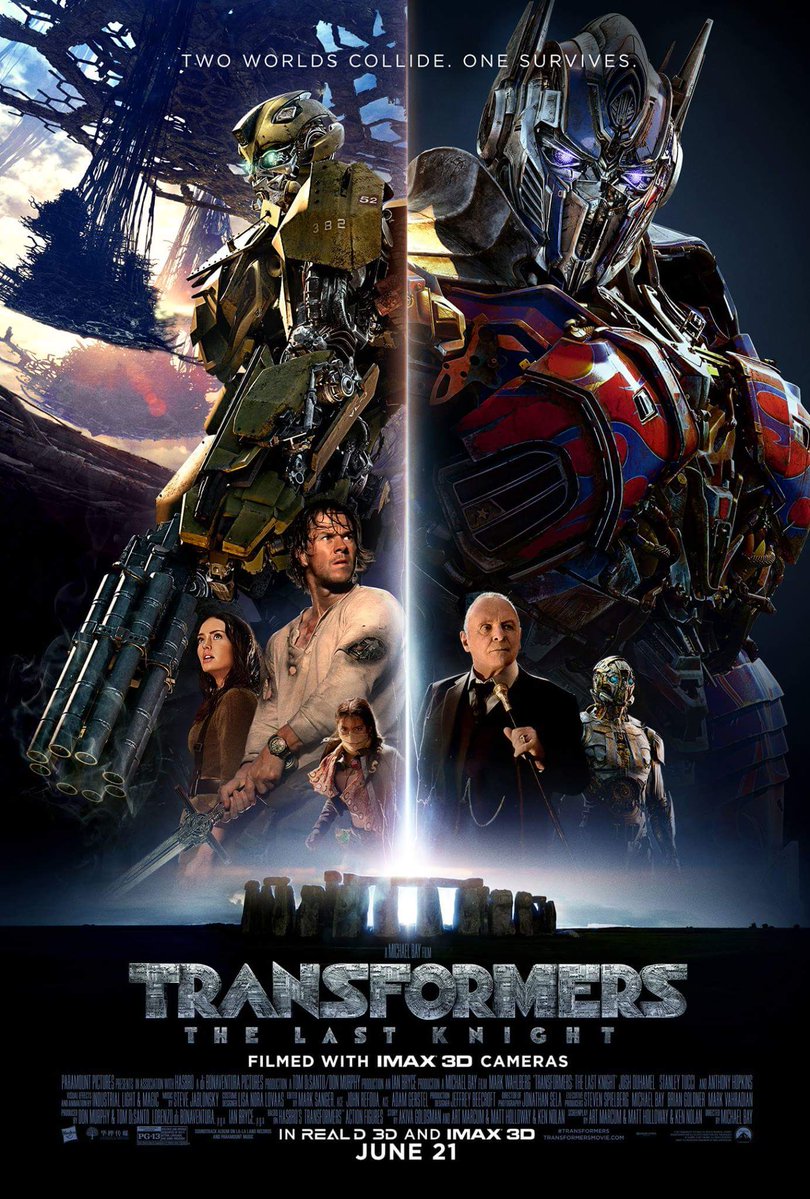
Transformers The Last Knight Font
Fonts in UseTransformers: The Last Knight is a 2017 sci-fi action film that follows the battle between the Autobots and the Decepticons, as well as humans, to save the planet from destruction by an ancient alien race.
The film title on the poster inspired Franco Fernández to develop a font based on the title lettering, which is downloadable for free in capital letters only from the Fonts Used Section.